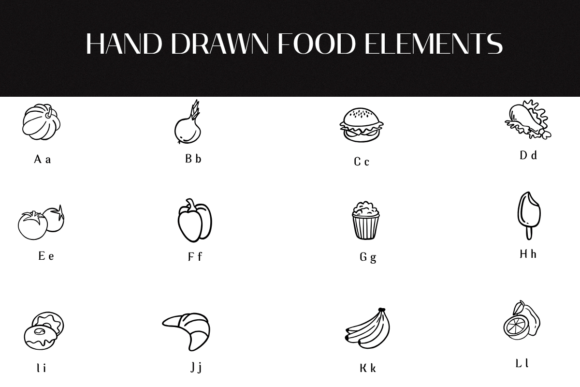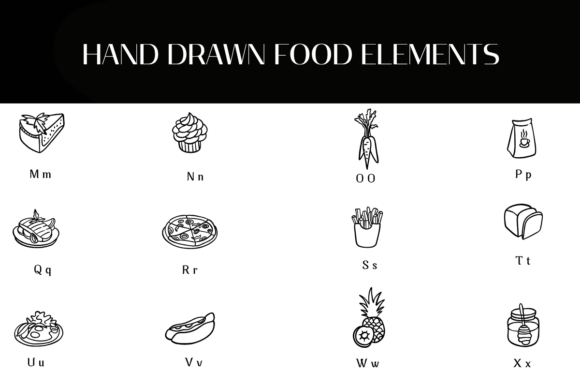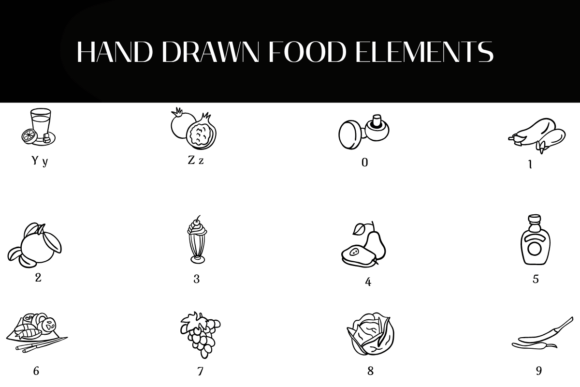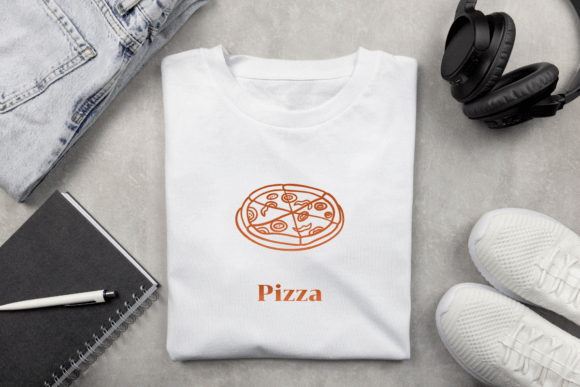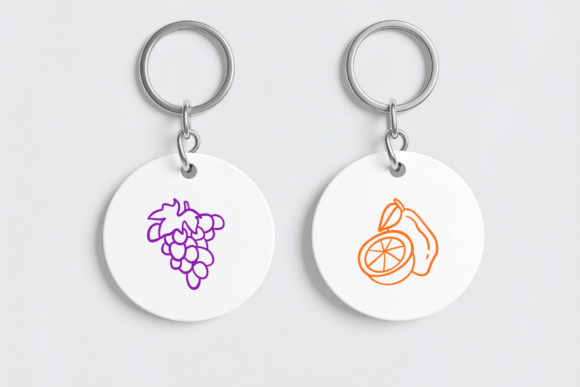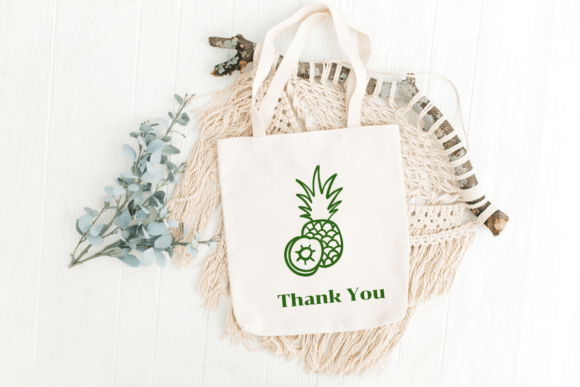
Introducing Hand Drawn Food Elements Font: A Deliciously Artisanal Touch for Your Typography
Are you a designer, crafty foodie, or culinary enthusiast looking to add a pinch of personality to your typography and layout work? Look no further than Hand Drawn Food Elements, a charming dingbats font that brings a fresh, artisanal flair to your visual creations. This beautifully curated font is packed with a mouth-watering array of hand-sculpted culinary illustrations, guaranteed to make your menus, branding, and social media layouts look simply irresistible.
What Makes Hand Drawn Food Elements So Special?
Unlike traditional fonts, Hand Drawn Food Elements doesn’t feature letters. Instead, each key on your keyboard unlocks a delightful, hand-drawn culinary illustration. From fresh produce like pineapples, tomatoes, and grapes, to savory comfort foods like pizza, burgers, sushi, and grilled steaks, this font boasts a comprehensive library of gastronomy staples. You’ll also find an assortment of bakery treats, coffee, and desserts to satisfy any sweet tooth.
A Perfect Blend of Style and Versatility
Hand Drawn Food Elements is stylized with clean, organic monoline outlines and a casual doodle soul, giving it a unique, approachable feel. This dingbats font is perfect for a wide range of applications, including:
- Restaurant menu decorations: Add a pop of personality to your menu with illustrations that perfectly complement your culinary offerings.
- Local farmer’s market branding: Create eye-catching signage and promotional materials that showcase the freshness and quality of your products.
- Custom recipe book illustrations: Bring your cookbook to life with charming illustrations that add a touch of warmth and personality.
- Cozy culinary social media layouts: Elevate your social media presence with engaging, foodie-friendly graphics that are sure to delight your followers.
Why Choose Hand Drawn Food Elements?
Hand Drawn Food Elements offers a rich sense of professional approachability and legendary handcrafted charm to your visual identity. This font ensures that your accent graphics mesh flawlessly with modern typography, creating a cohesive and visually appealing design. Here are just a few reasons why designers and crafters love Hand Drawn Food Elements:
- Unique and eye-catching illustrations: Stand out from the crowd with illustrations that are both charming and distinctive.
- Easy to use: Simply type on your keyboard to unlock a world of culinary illustrations.
- High-quality design: Enjoy crisp, clean lines and a professional finish that reflects well on your brand.
- Versatile: Use Hand Drawn Food Elements across a range of applications, from digital to print.
Get Ready to Add a Delicious Touch to Your Designs
If you’re looking for a font that will add a touch of personality and whimsy to your typography and layout work, look no further than Hand Drawn Food Elements. With its comprehensive library of hand-sculpted culinary illustrations, clean design, and versatile applications, this dingbats font is sure to become a staple in your design toolkit. So why wait? Download Hand Drawn Food Elements today and start creating mouth-watering designs that will leave your audience craving more!
- Comprehensive library of hand-sculpted culinary illustrations
- Clean, organic monoline outlines and casual doodle soul
- Perfect for restaurant menus, farmer’s market branding, custom recipe books, and social media layouts
- Unique and eye-catching illustrations
- Easy to use
- High-quality design
- Versatile applications
In conclusion, Hand Drawn Food Elements is a one-of-a-kind font that brings a deliciously artisanal touch to your typography and layout work. Whether you’re a designer, crafty foodie, or culinary enthusiast, this charming dingbats font is sure to delight. So go ahead, get creative, and add a pinch of personality to your designs with Hand Drawn Food Elements!